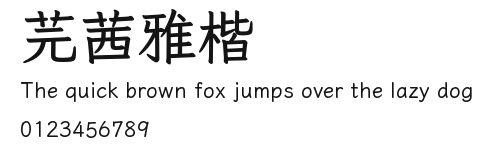
芫茜雅楷 Preview
• Font Name: 芫茜雅楷
• Font ID: 芫茜雅楷 Bold:Version 0.030
• Full Font Name: 芫茜雅楷 Bold
• PostScript Name: JyunsaiKaai-Bold
• Designer: Fontworks Inc.
About 芫茜雅楷.ttf
芫茜雅楷.ttf is a modern, elegant sans-serif font designed for ultimate readability and visual harmony. Perfect for branding, headlines, web design, and print materials.